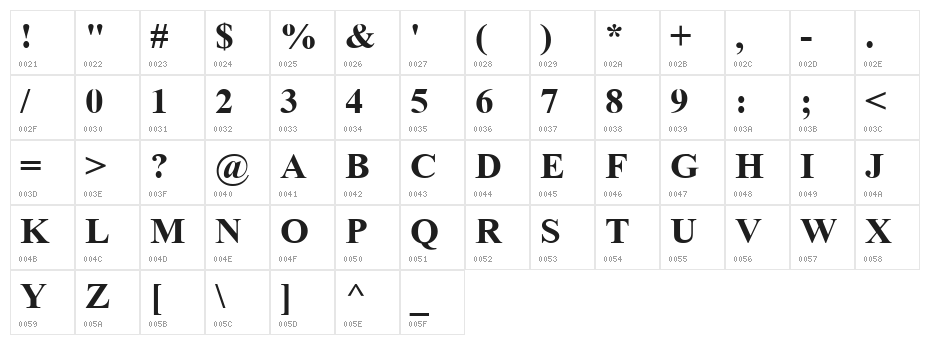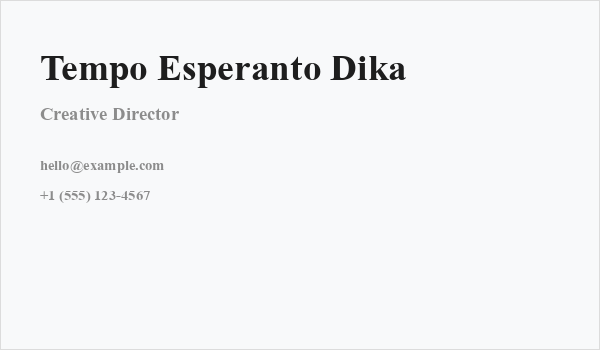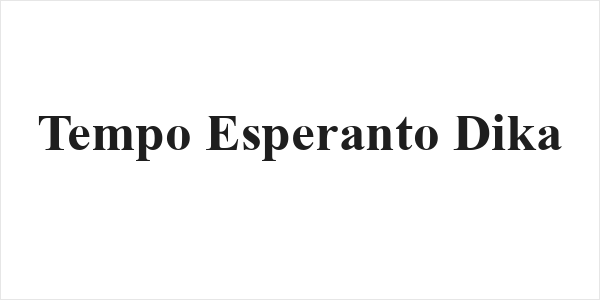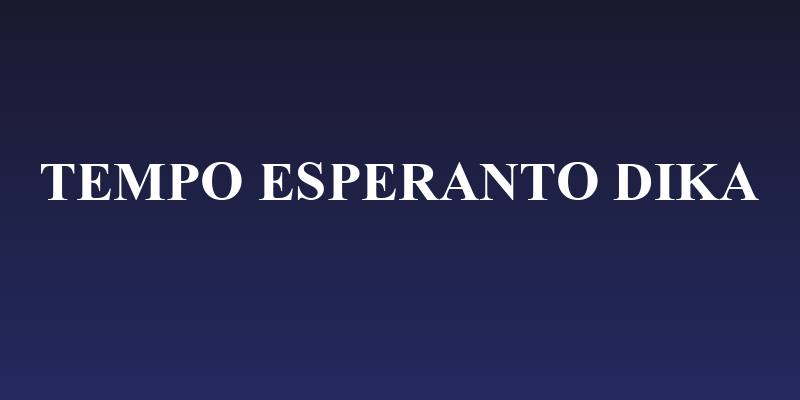
Tempo Esperanto Dika Font
Tempo Esperanto Dika Description
This font features a bold and classic serif design, characterized by its strong, thick strokes and high contrast between thick and thin lines. The serifs are pronounced and slightly curved, giving it a traditional yet elegant appearance. The uppercase letters are tall and commanding, while the lowercase letters maintain a consistent style with a slightly more rounded form. The numerals are robust and clear, ensuring legibility. Special characters are well-defined, maintaining the overall aesthetic of the font. This typeface exudes a sense of authority and sophistication, making it suitable for formal and impactful designs.
| Use Case | Headlines, Logos, Editorials |
| Proposed Projects | Ideal for book covers, editorial headlines, formal invitations, and branding materials that require a touch of elegance and authority. |